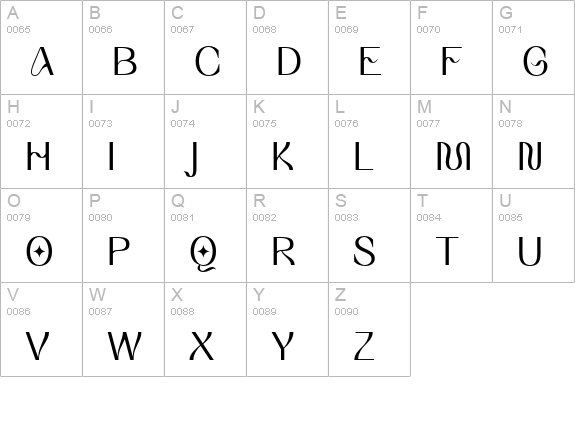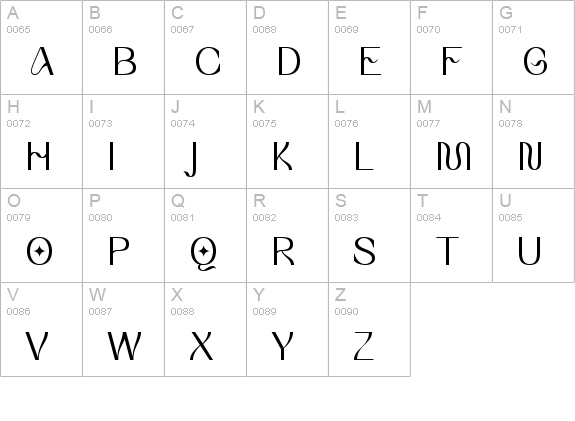
Quency is a demo font in the Fancy > Feminine category, designed by craftsupplyco. It has been downloaded 68 times and is available for Windows, Mac and Linux.
Quency font is a modern and stylish typeface that exudes elegance and sophistication. With its sleek lines and sharp angles, Quency font adds a touch of contemporary flair to any design project. Its versatility makes it suitable for a wide range of applications, from branding and advertising to web design and print materials.